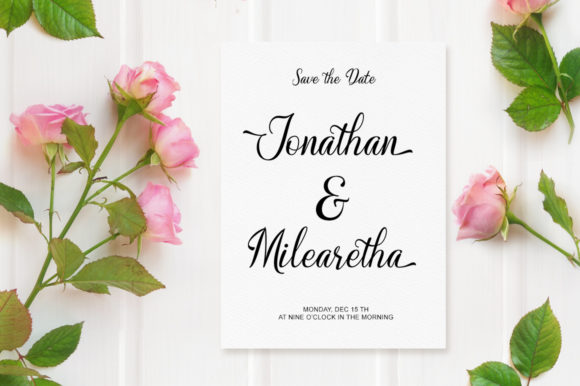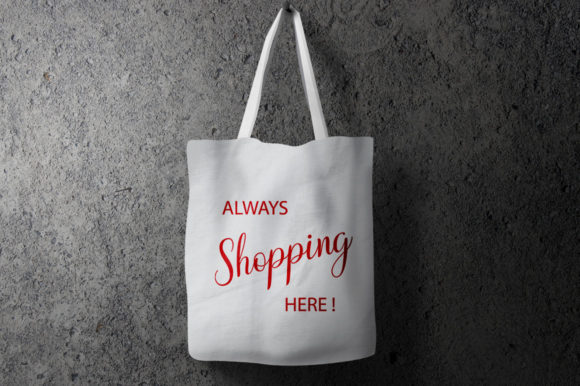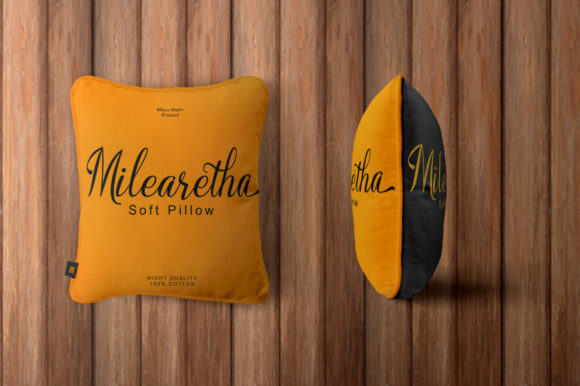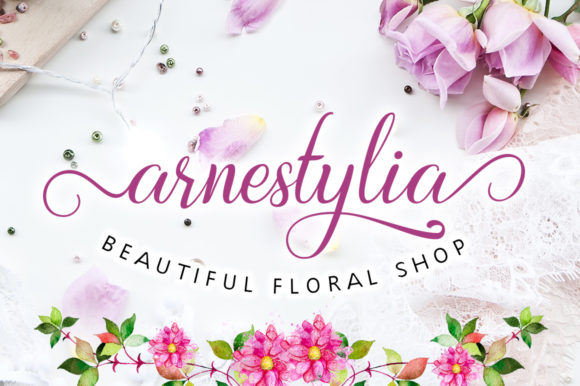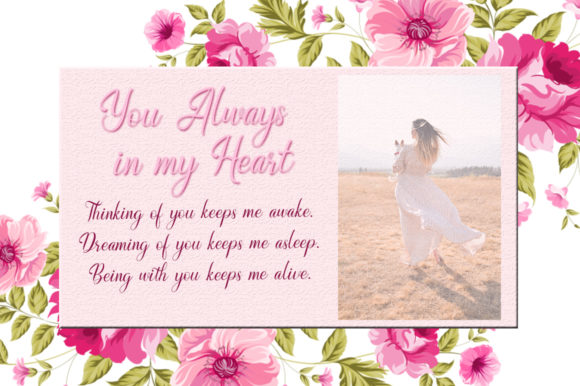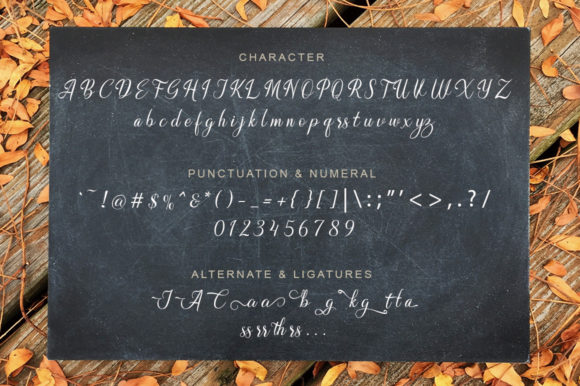
Introduction to Jesintha Font
The Jesintha us a formal script font.
It has an elegant and luxurious style which is perfect for wedding invitations, magazines, social media, restaurant menuโs, greeting cards and much more .
Jesintha Font offers exceptional quality and versatility, making it a valuable addition to your design toolkit. Whether you’re creating for personal projects or commercial use, Jesintha Font delivers professional results.